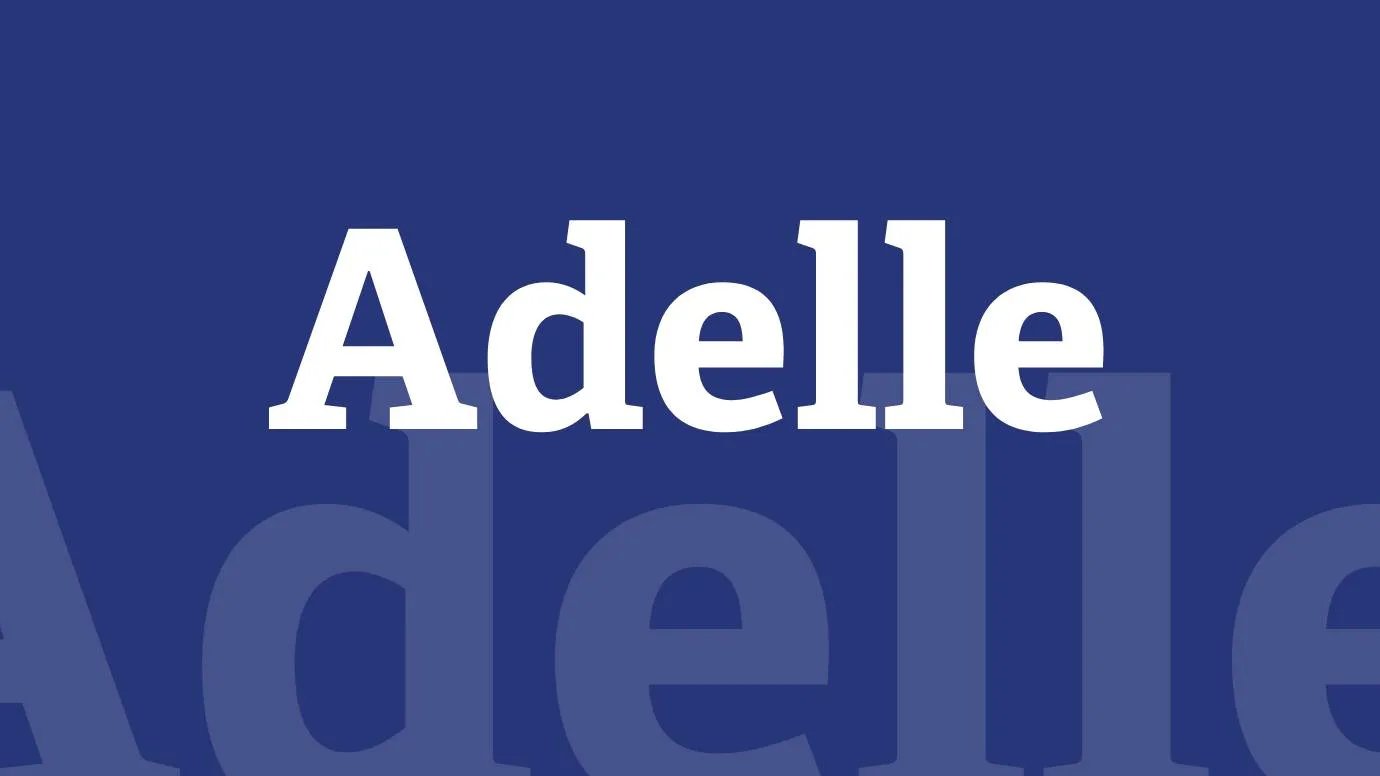
Adelle Font Family is an awesome web font designed by Veronika Burian and José Scaglione. This font have upto twenty eight typefaces. This font family assist upto eighty two languages and have twenty six opentype capabilities.
Adelle font is a slab serif typeface conceived particularly for in depth editorial use, especially in newspapers and magazines, its persona and versatility make it a actual multiple cause typeface.
DesignerVeronika Burian
TypeSlab-Serif